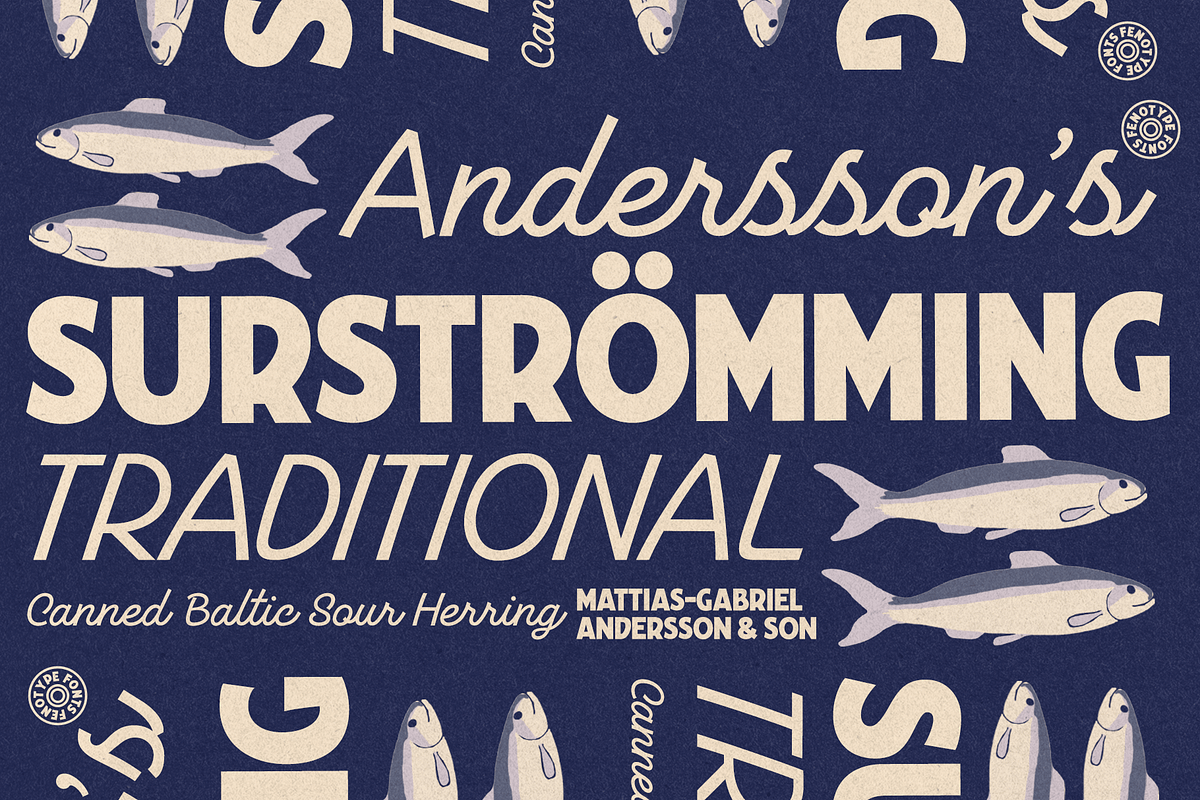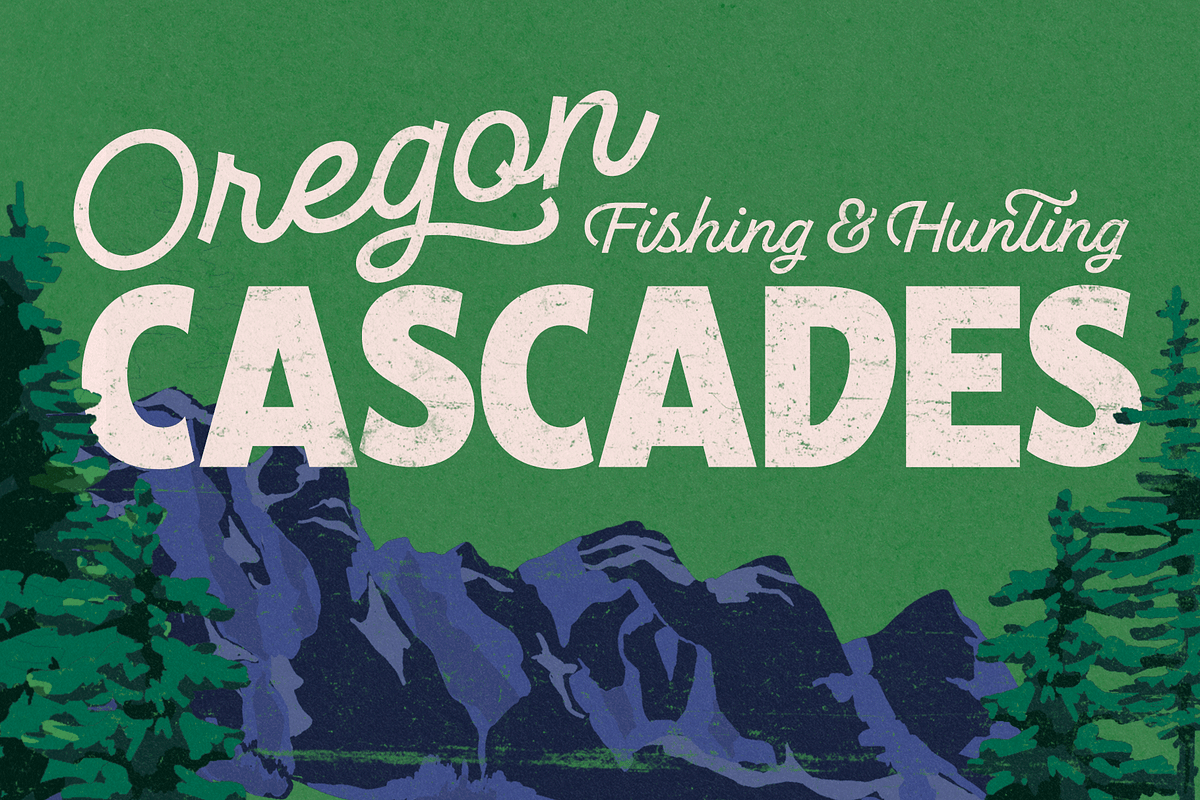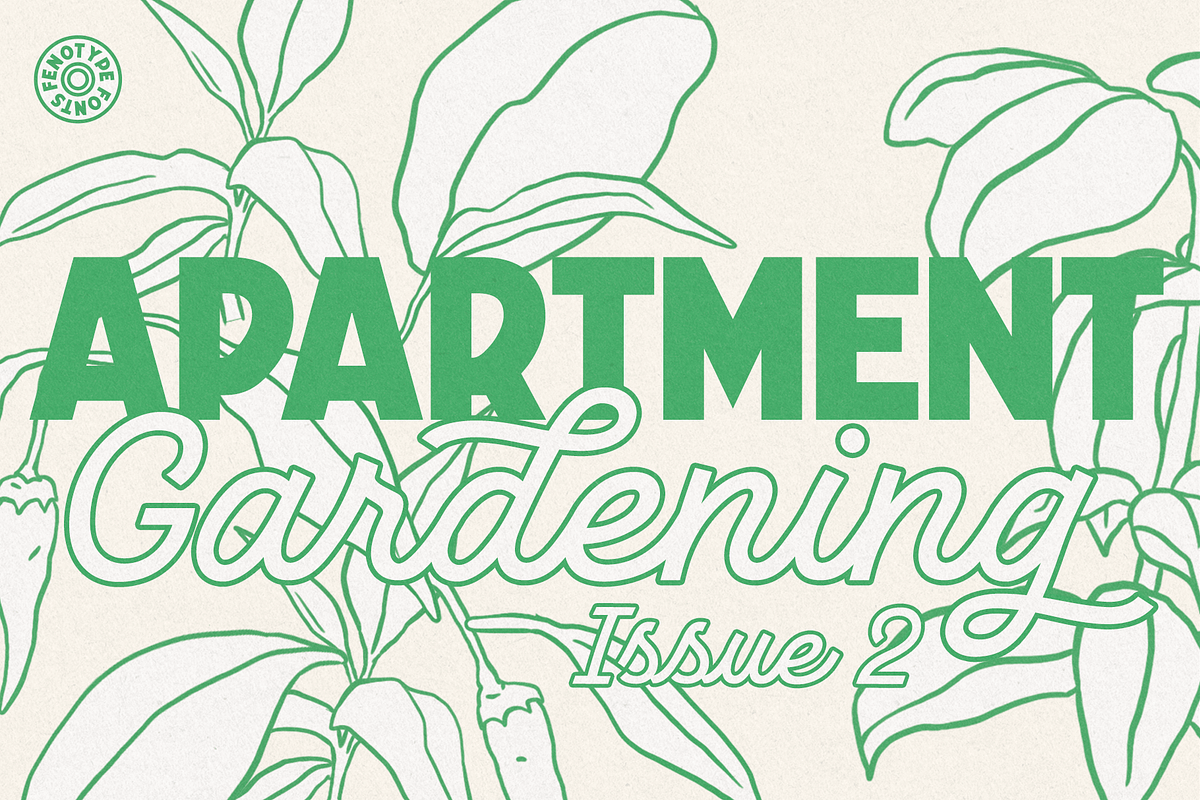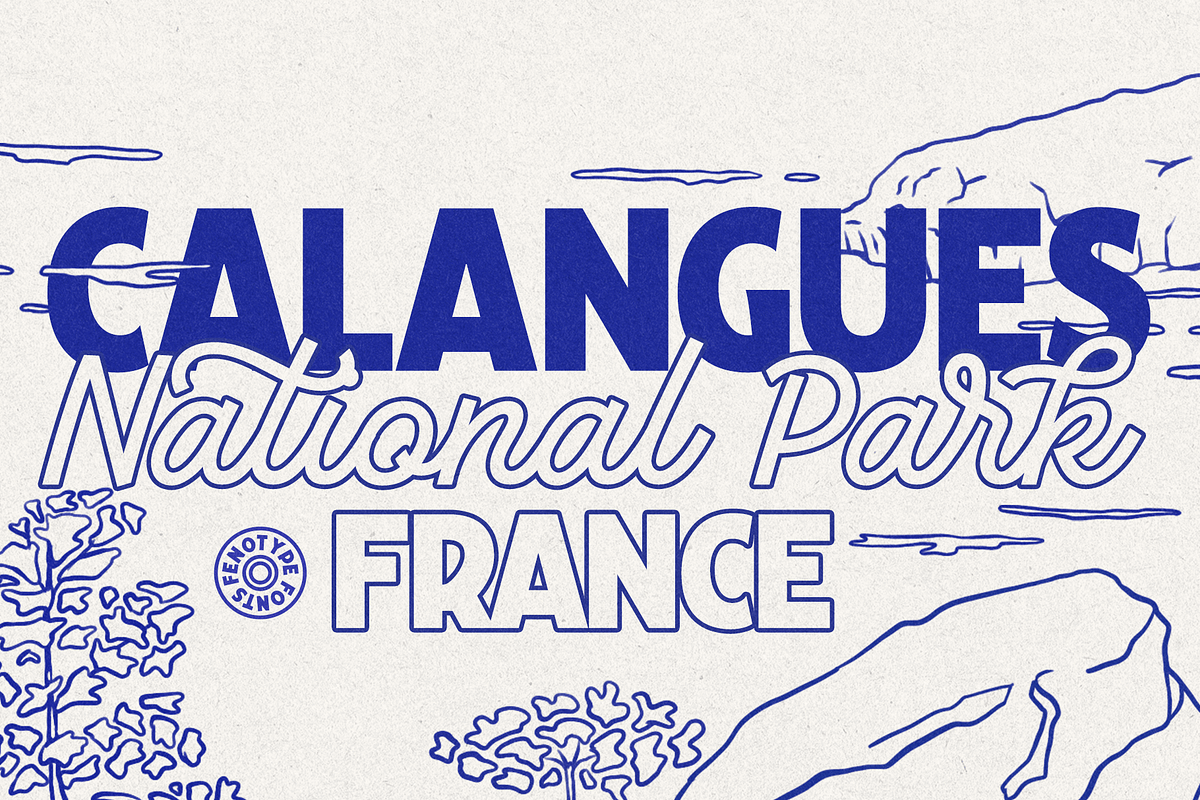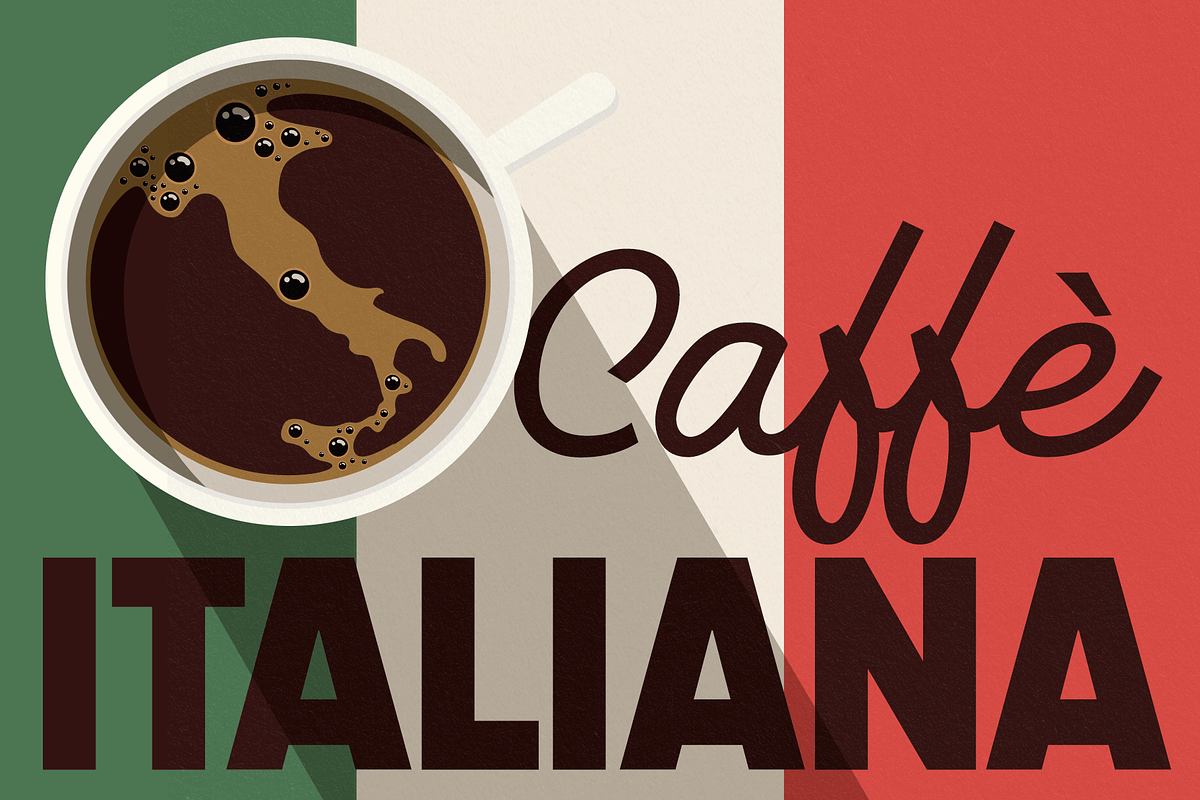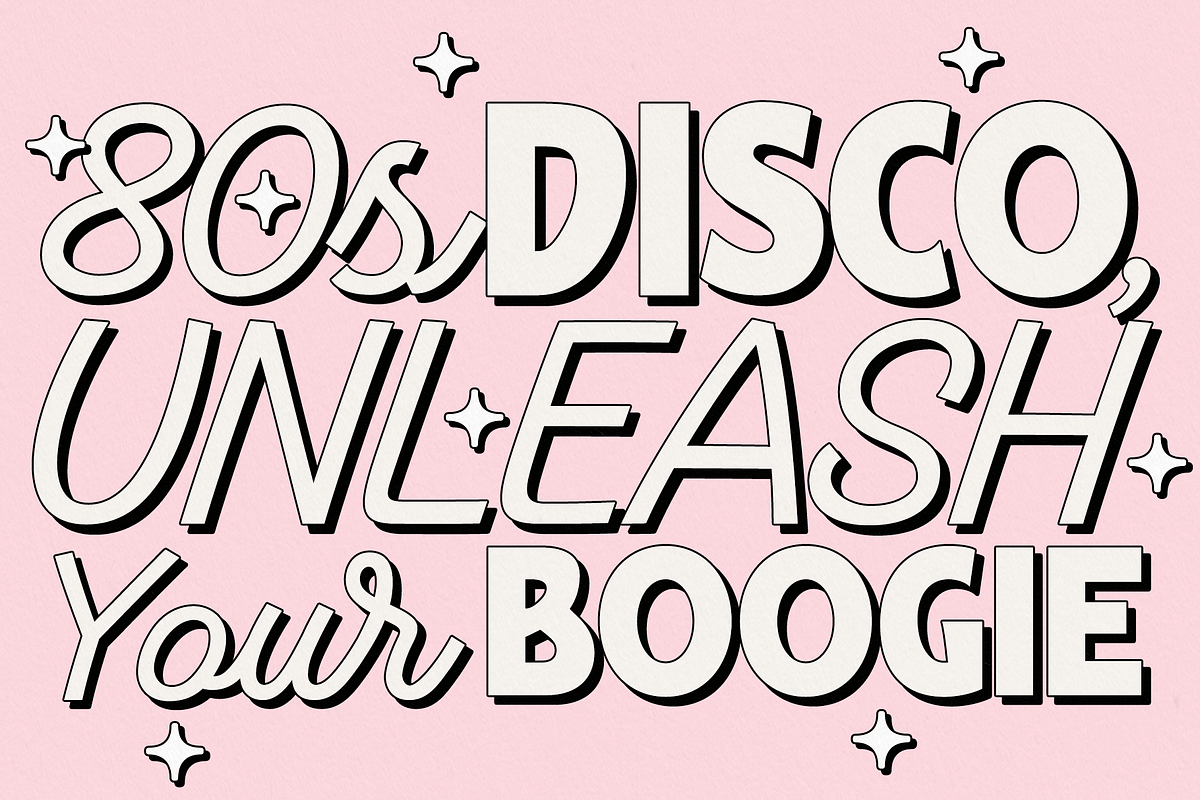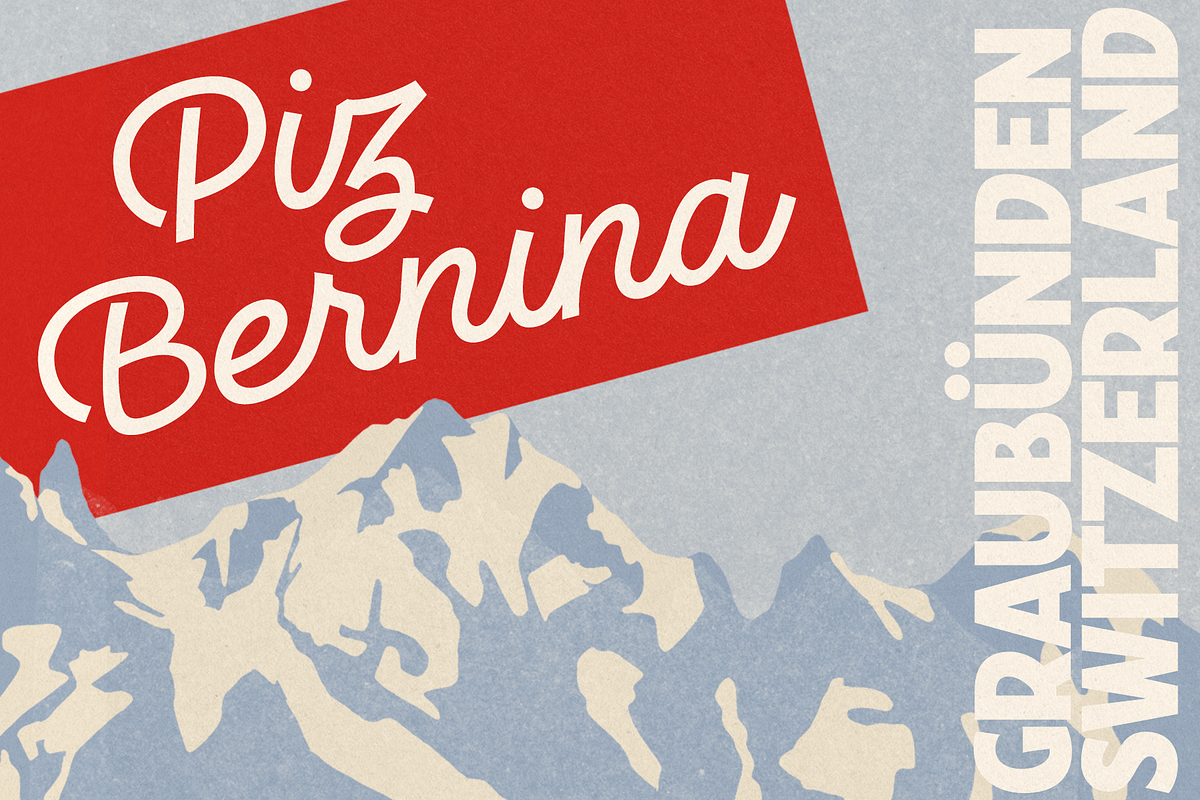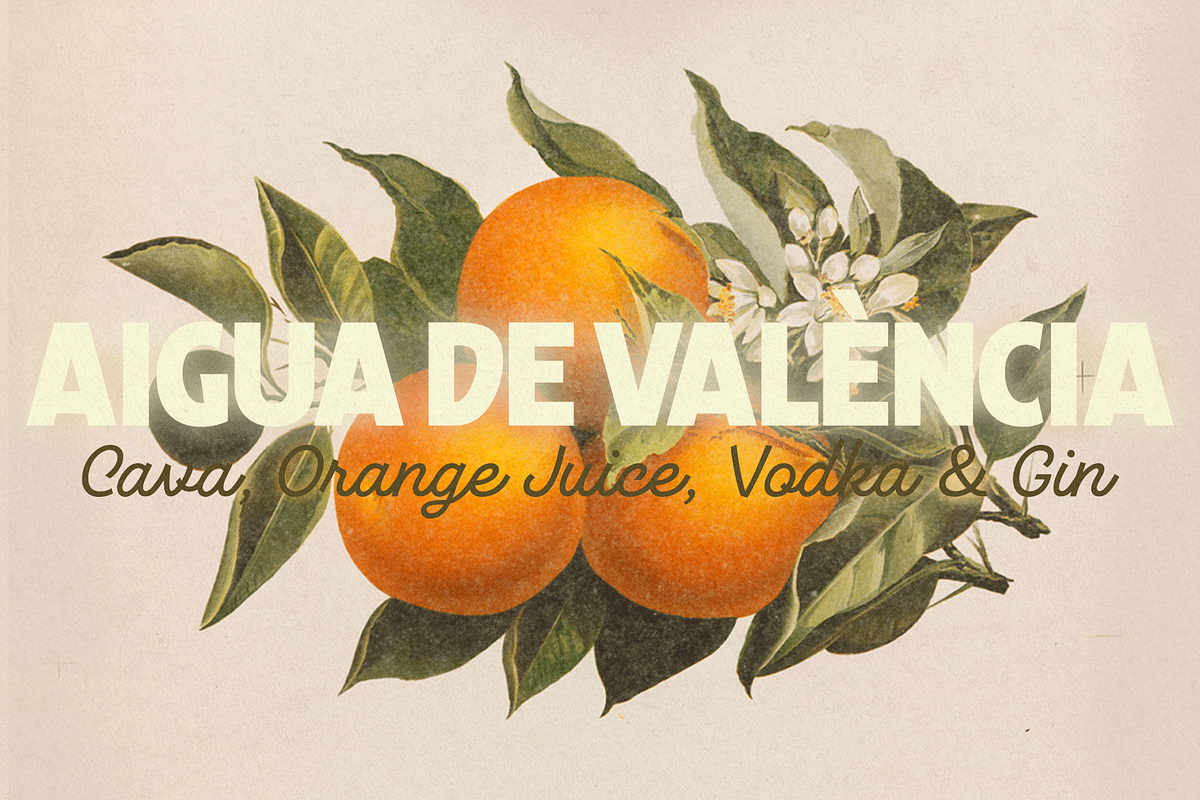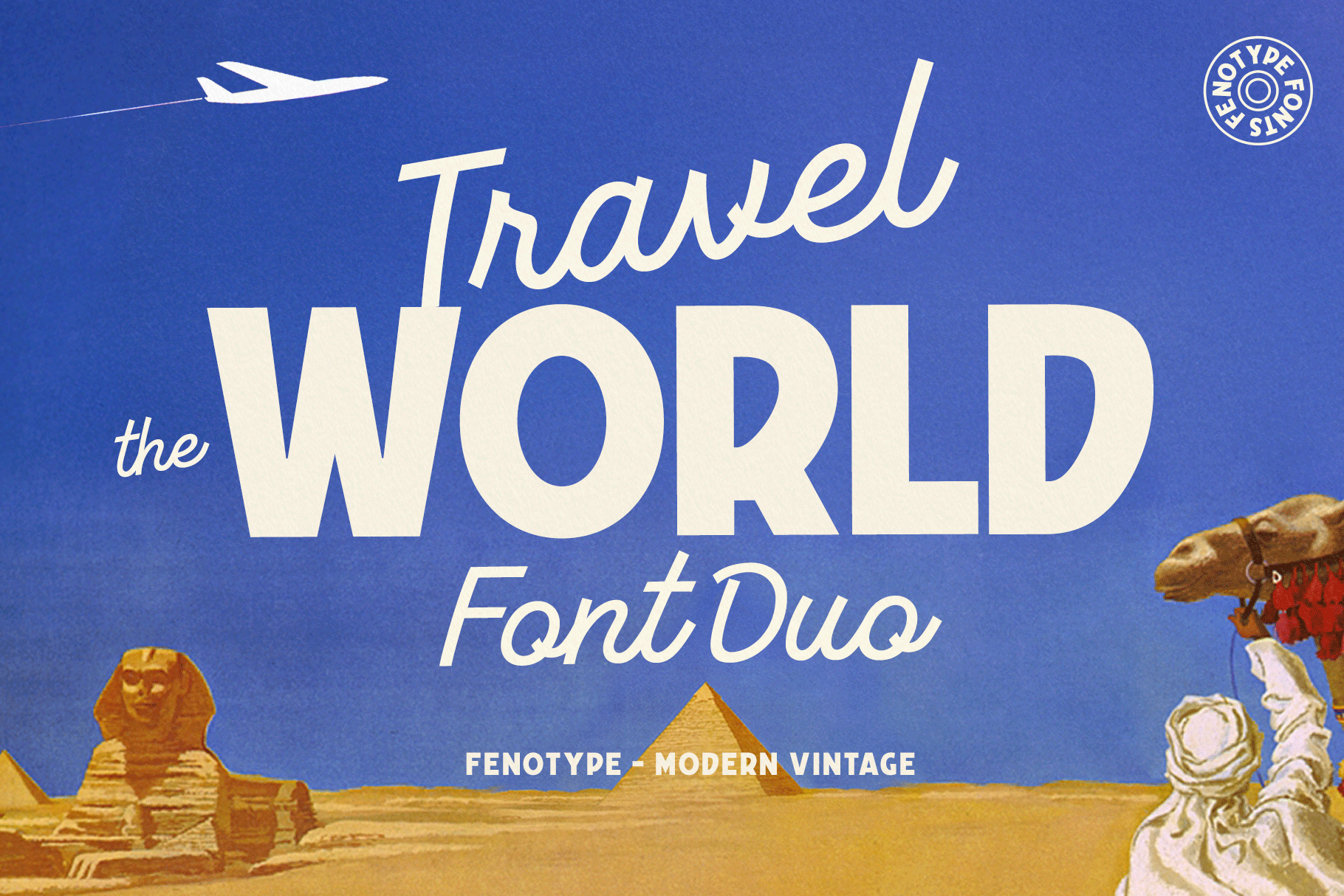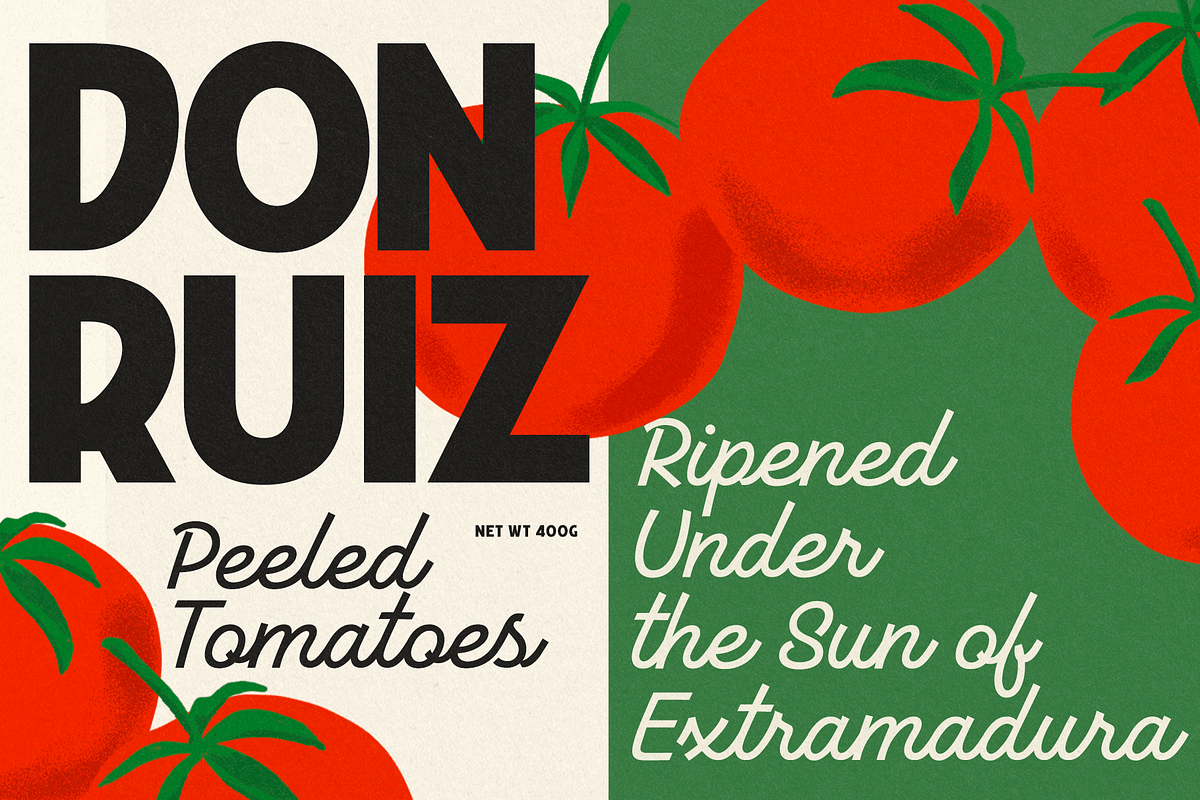
Travel The World -Font Duo
Inspired by the typography of 20th-century travel posters, Travel The World is a font duo featuring a low-contrast script with a large x-height and a chunky, vernacular sans with a hint of Art Nouveau—designed to complement each other. In the Script style, uppercase letters are designed as decorative initials. For all-caps text, use the Small Caps feature. Additionally, the Script includes several OpenType features such as Swash, Stylistic, and Titling Alternates. Travel The World is a versatile choice for display use, from posters to packaging and from brand identities to book covers. Both styles work beautifully on their own, and thanks to their relatively simple feature set, they also pair effortlessly with other typefaces.